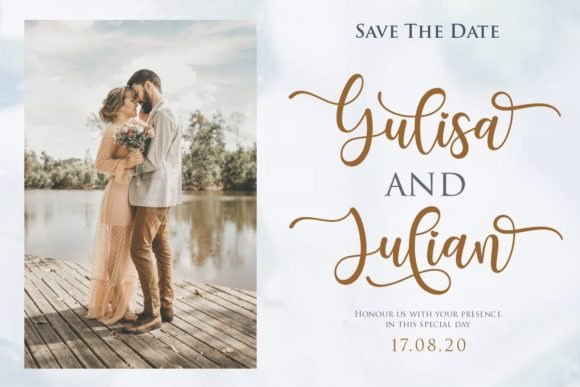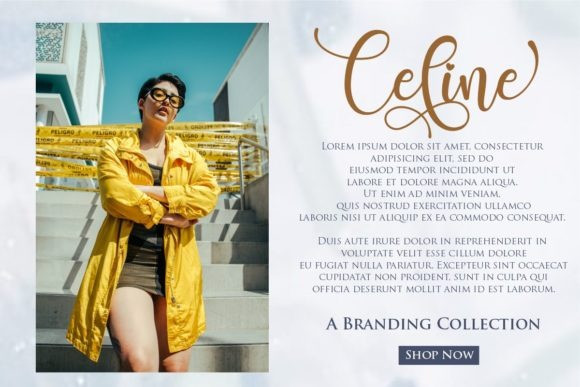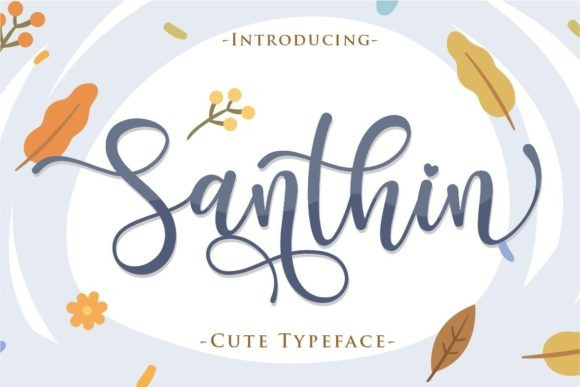
Santhin Script Font
Santhin Script Font is modern calligraphy script font, this font is about fleeting vision, touch of moments. It’s created by Gilar Studio. Santhin Script Font a sweet, soft hand-lettered script. The playful rounded characters make it the perfect font for creating stunning crafts. Santhin comes packed with gorgeous swashes, that will allow you to add a decorative touch within seconds. Fall in love with its authentic feel and use it to create gorgeous wedding invitations, beautiful stationary art, eye-catching social media posts, and cute greeting cards.